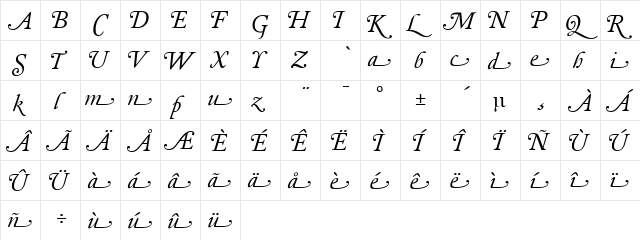
DTLElzevirT Italic
Design Context for DTLElzevirT Typeface
DTLElzevirT takes a measured approach to typography — its balanced proportions and neutral character make it a reliable workhorse for both digital and print work. The dynamic lean of this cut emphasises speed and emphasis in any layout.
Pro Tip: Try DTLElzevirT for annotation and caption copy alongside an upright companion — the contrast in angle creates a dynamic but ordered typographic system.